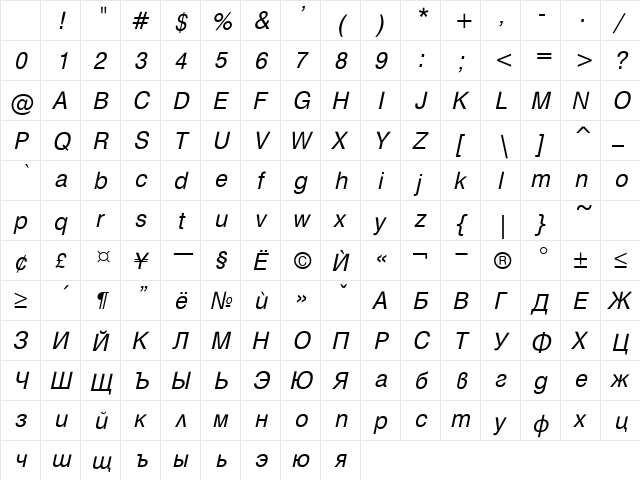
Hebar is a composed and adaptable typeface that performs quietly and consistently across a wide range of design contexts. The slanted form adds forward momentum and visual energy.
Pro Tip: Use Hebar for emphasis, pull quotes, and subheadings where its slanted energy can add rhythm to the layout.